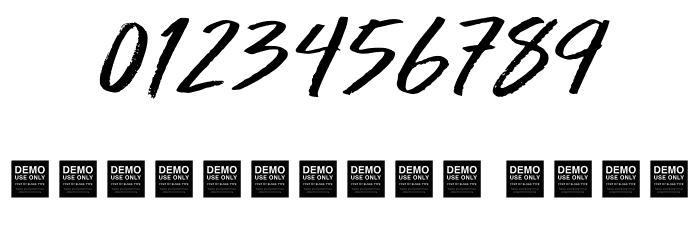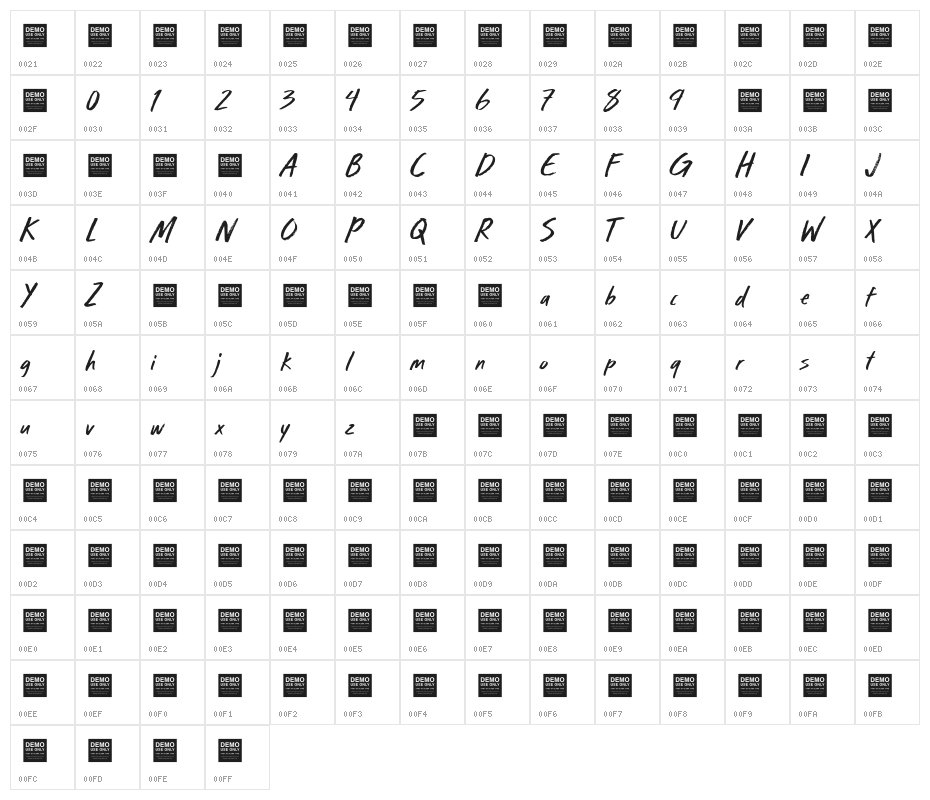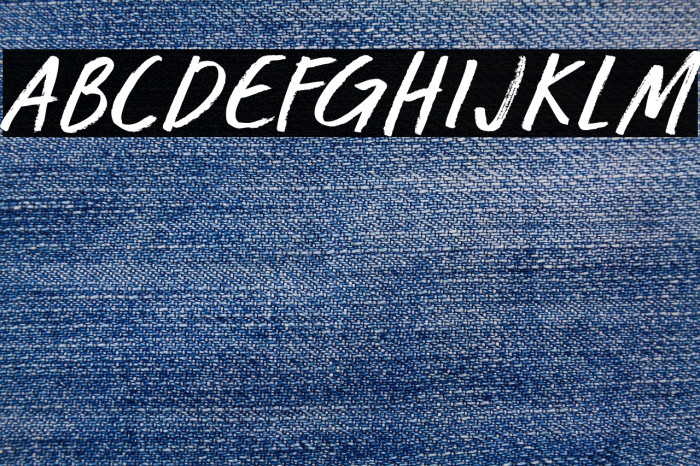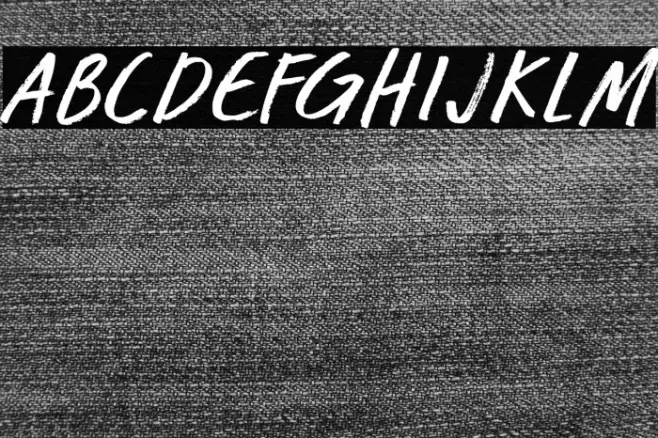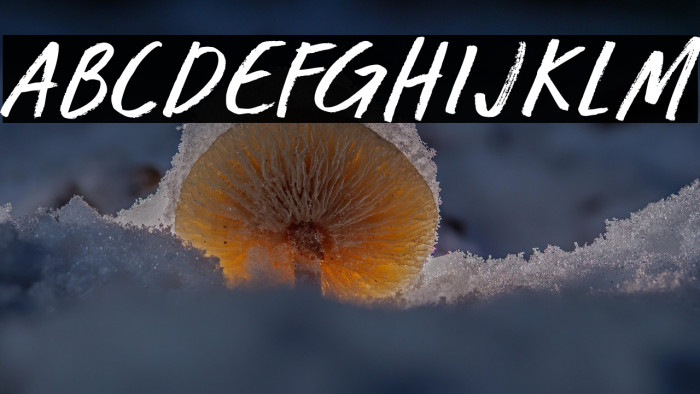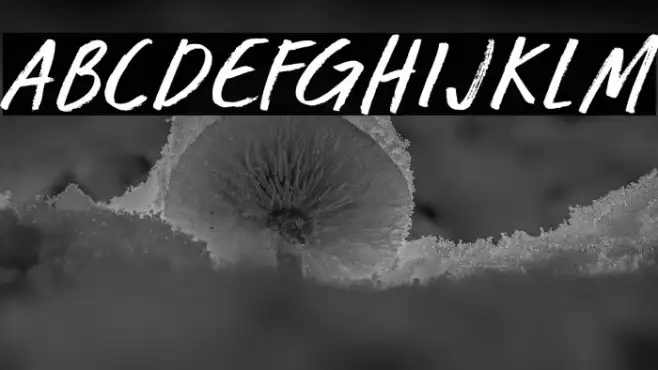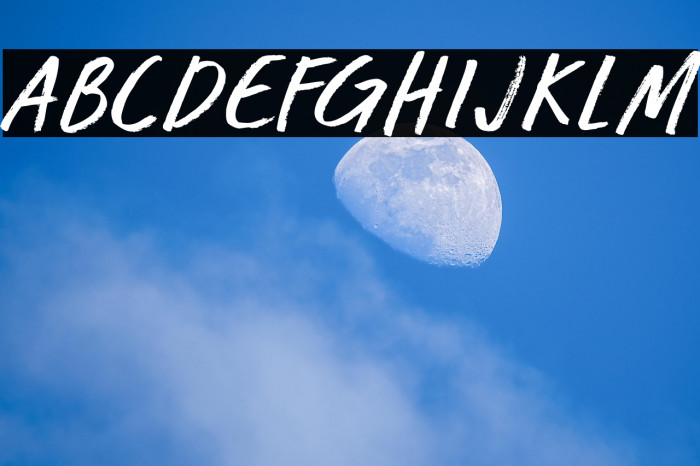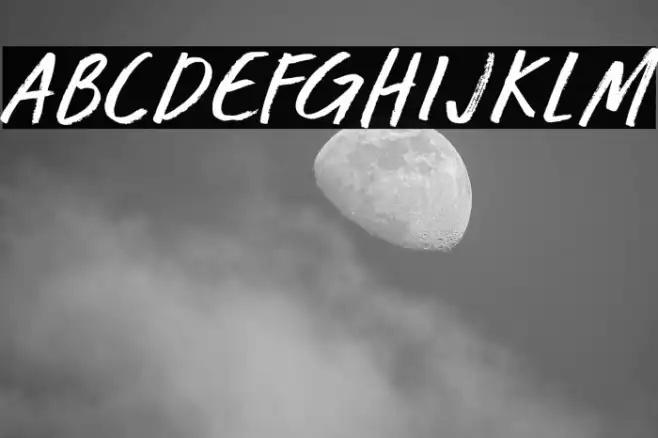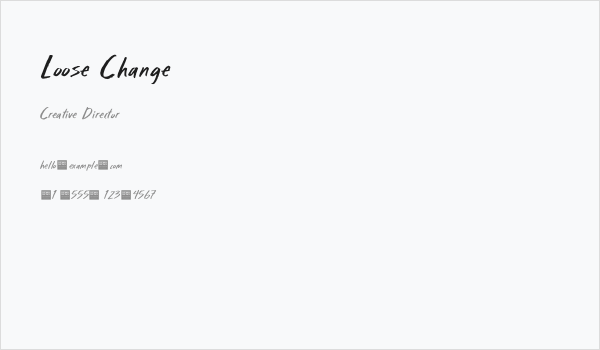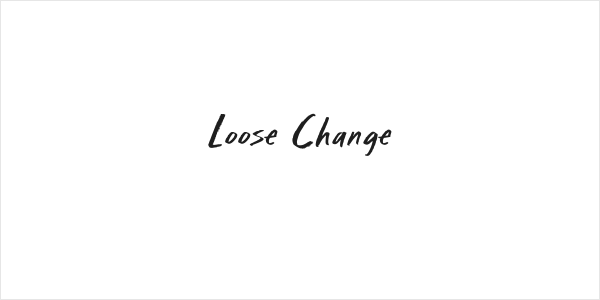
Loose Change Font
Loose Change Description
This font features a dynamic and energetic handwritten style, characterized by its bold and expressive strokes. The letters have a natural, brush-like appearance, giving them a casual yet impactful look. The uppercase and lowercase letters maintain a consistent flow, while the numbers and special characters complement the overall aesthetic. The font's organic texture and slightly irregular edges add to its charm, making it suitable for projects that require a personal touch. Its versatility allows it to be used in various contexts, from creative branding to artistic designs.
| Proposed Projects | Ideal for branding, posters, invitations, and artistic projects that require a personal and dynamic touch. |